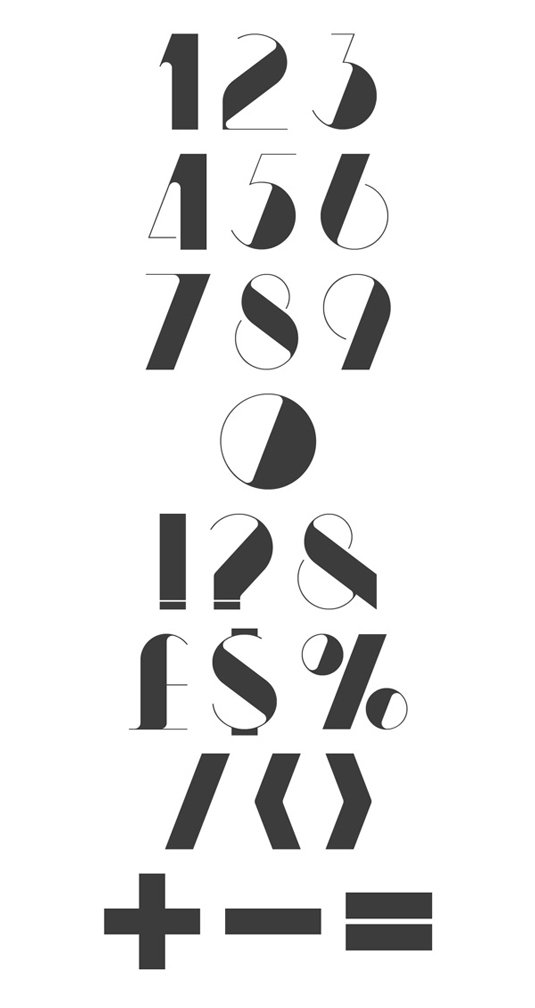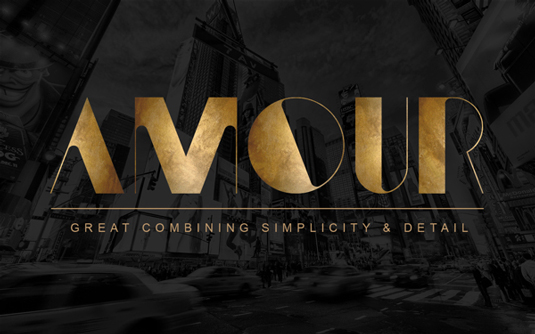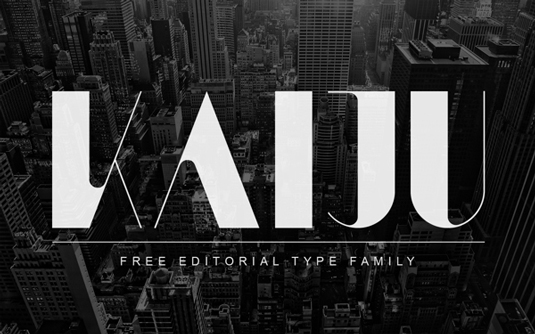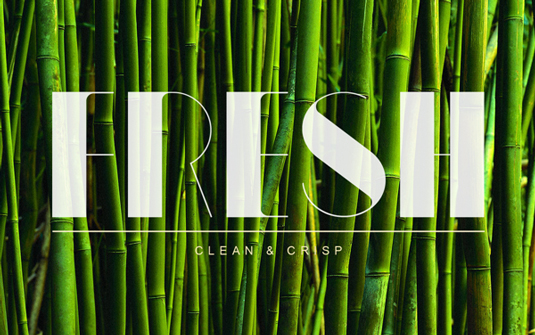
Font of the day: KAIJU
KAIJU by Anthony James
"KAIJU is a sans serif typeface that comes in multiple weights," says its designer Anthony James. "Its simplicity makes it a very legible display font, perfect for editorials. The equal emphasis on thick and thin allows for both bold and subtle aesthetics."